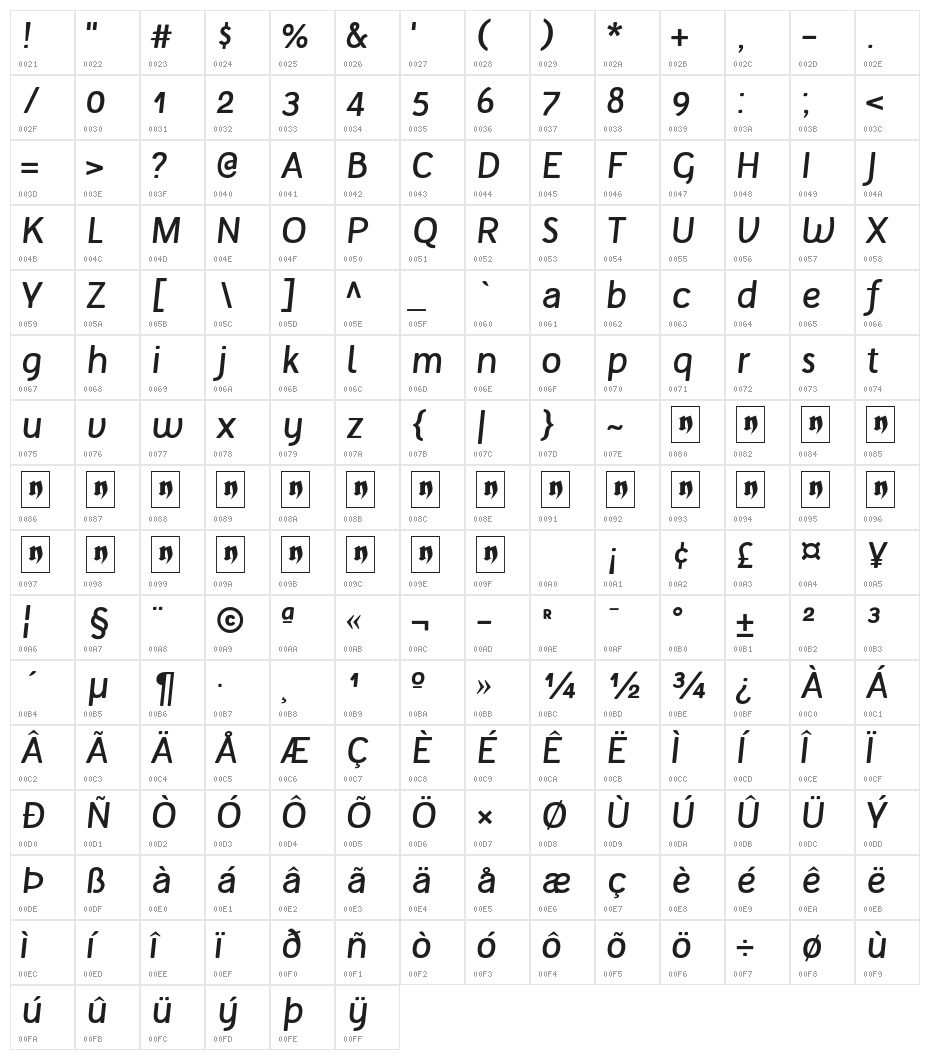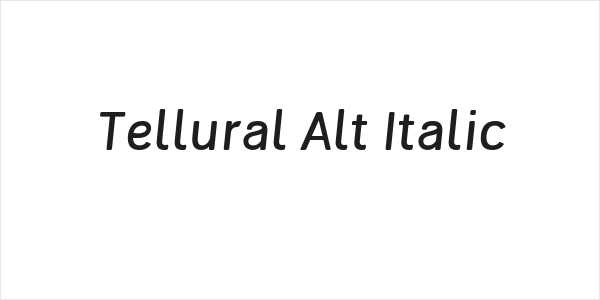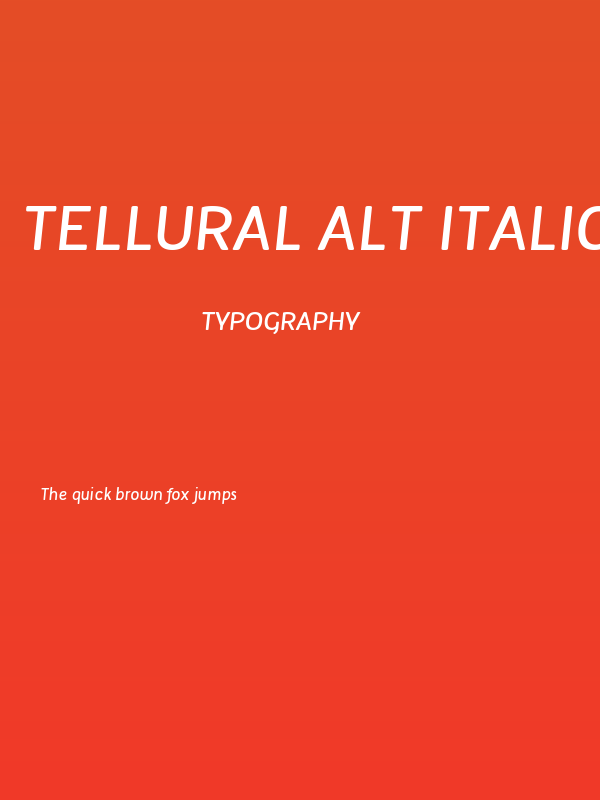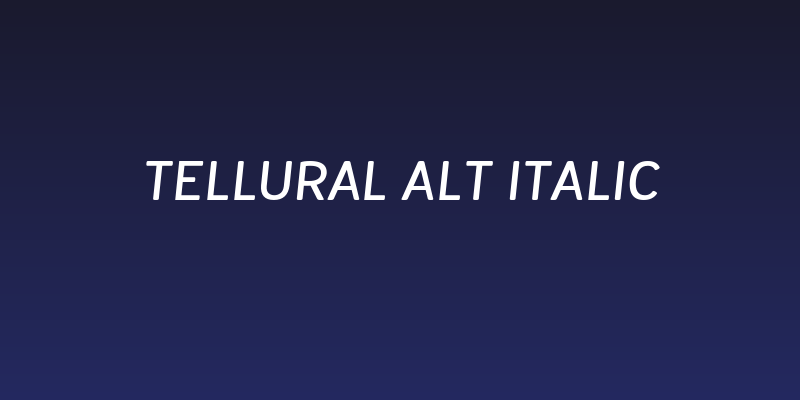
Tellural Alt Italic Font
Tellural Alt Italic Description
This font features a modern and sleek design with a slight italic slant, giving it a dynamic and forward-moving appearance. The characters are well-proportioned, with smooth curves and clean lines that enhance readability. The uppercase letters are bold and commanding, while the lowercase letters maintain a consistent flow. Numbers are clear and distinct, making them suitable for various applications. Special characters are well-integrated, maintaining the overall aesthetic of the font. The design is versatile, suitable for both digital and print media, offering a contemporary look that can adapt to various styles.
| Proposed Projects | Ideal for branding, advertising, web design, and editorial layouts where a modern and dynamic feel is desired. |